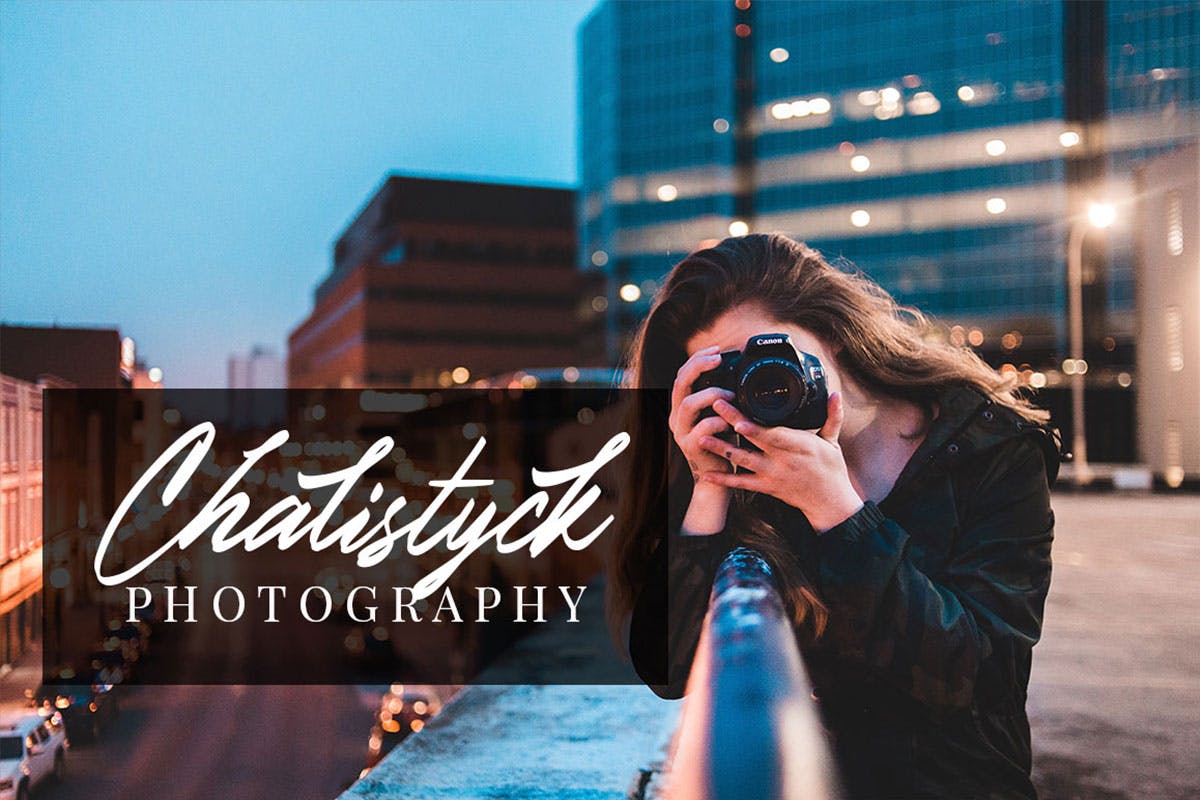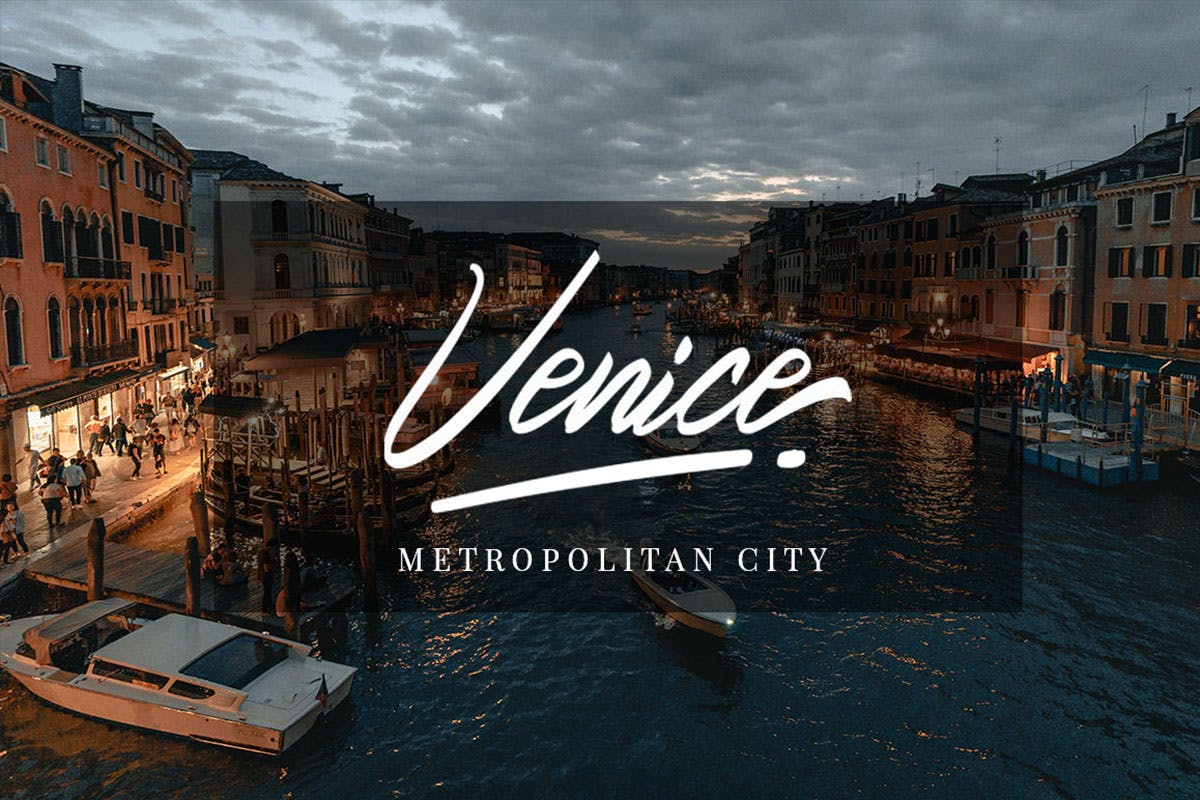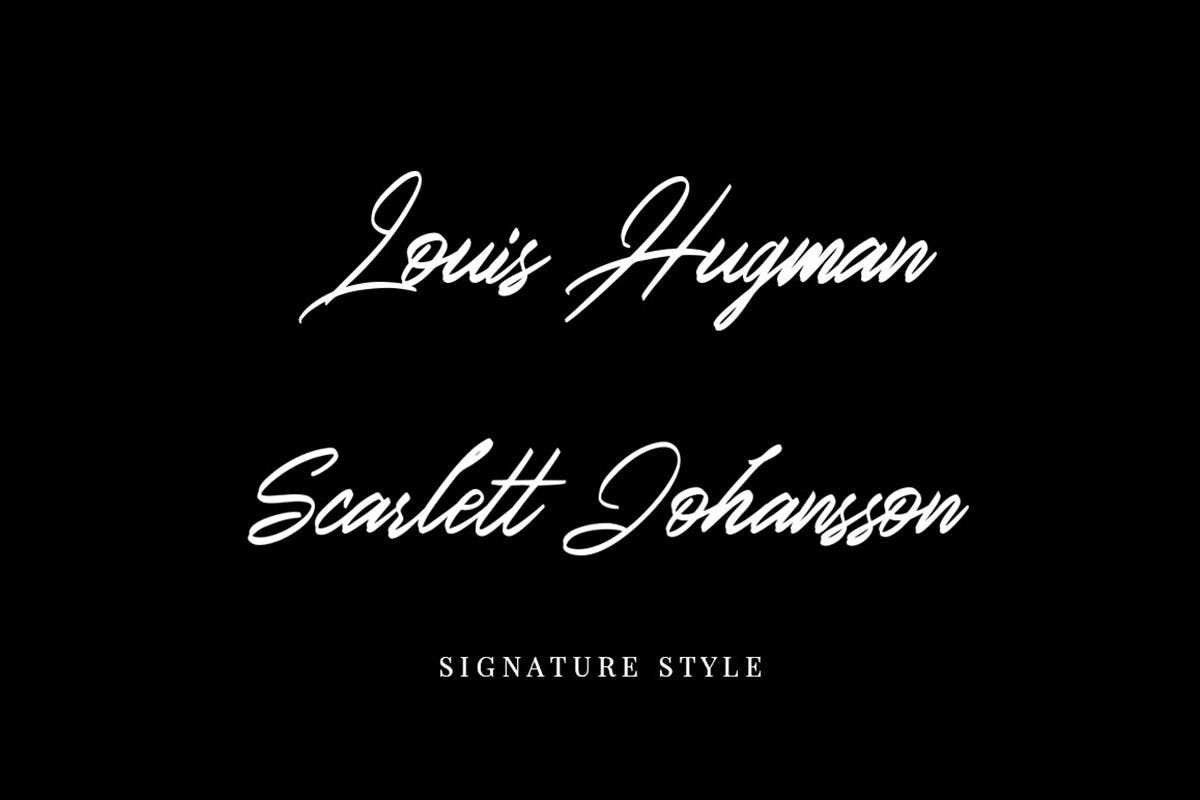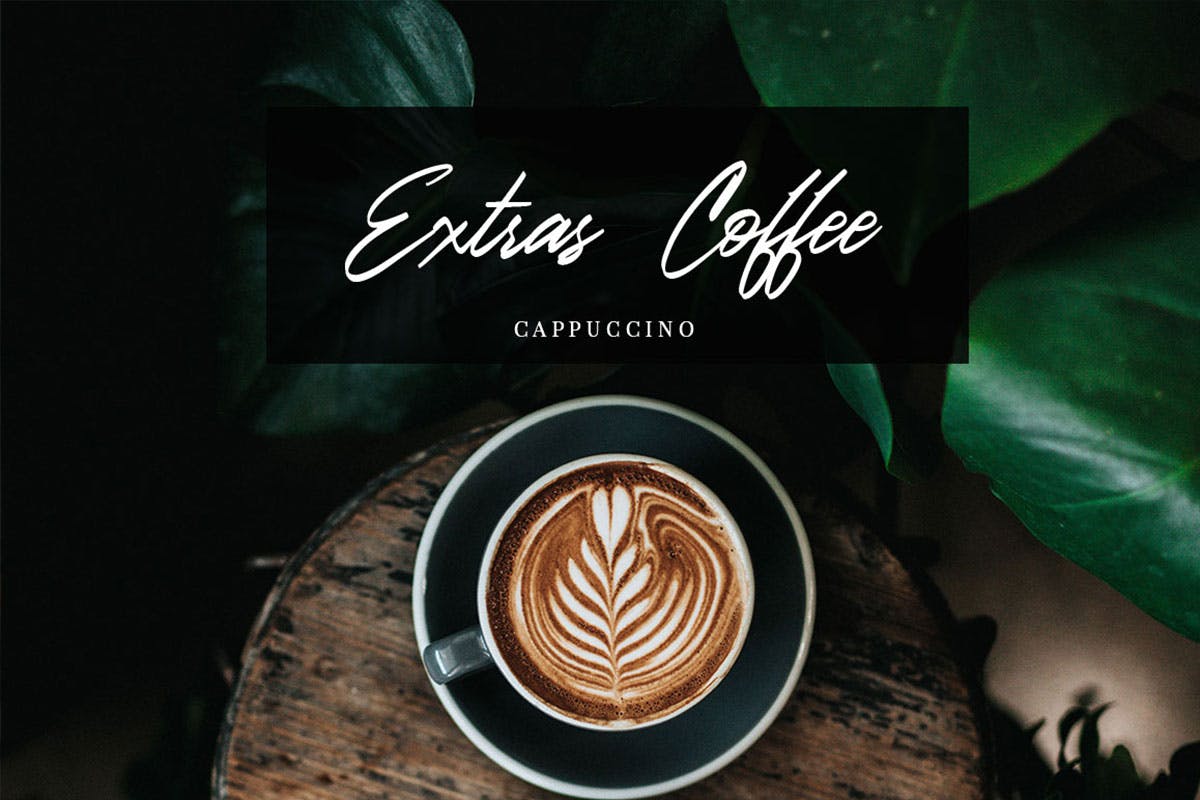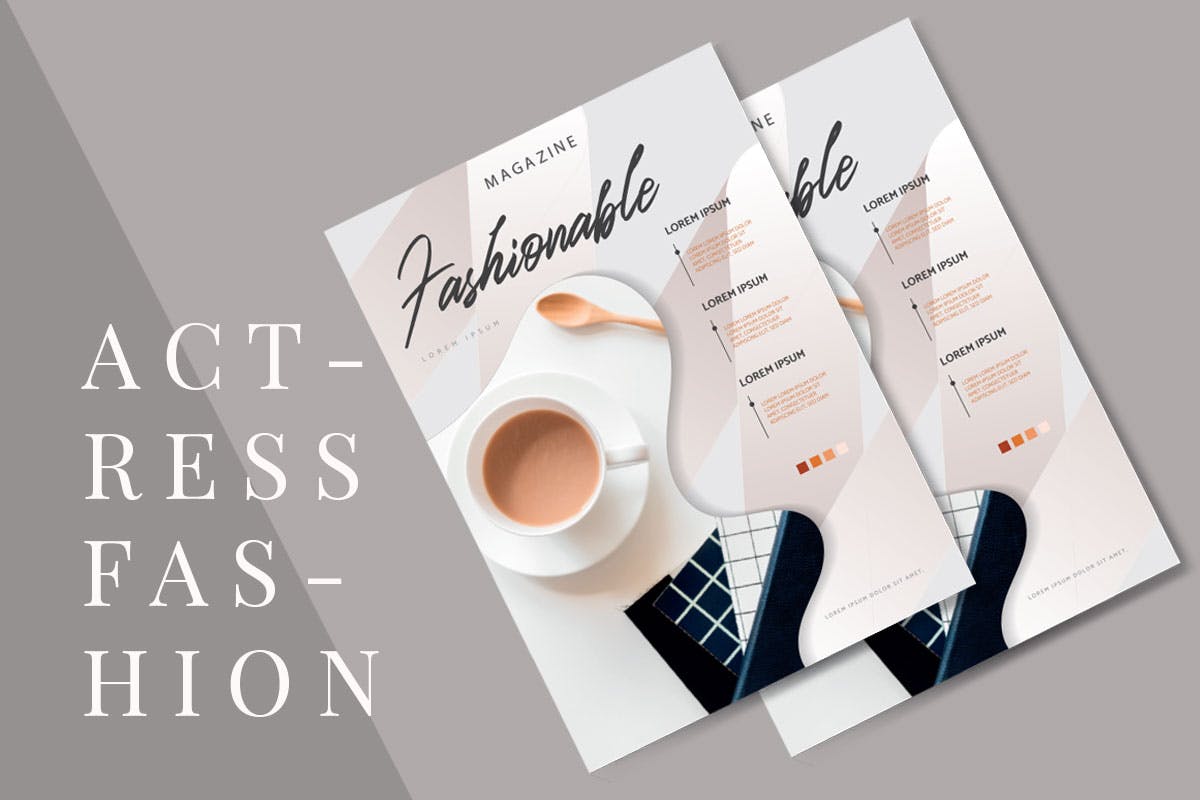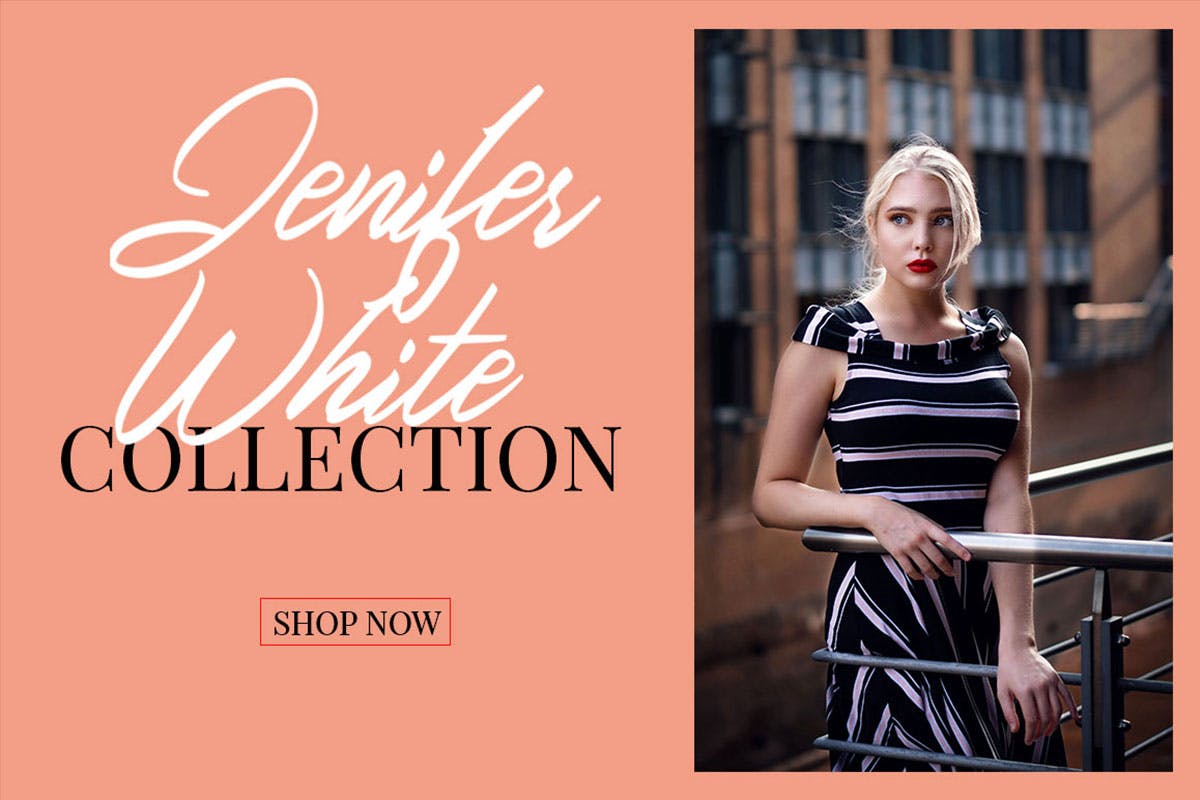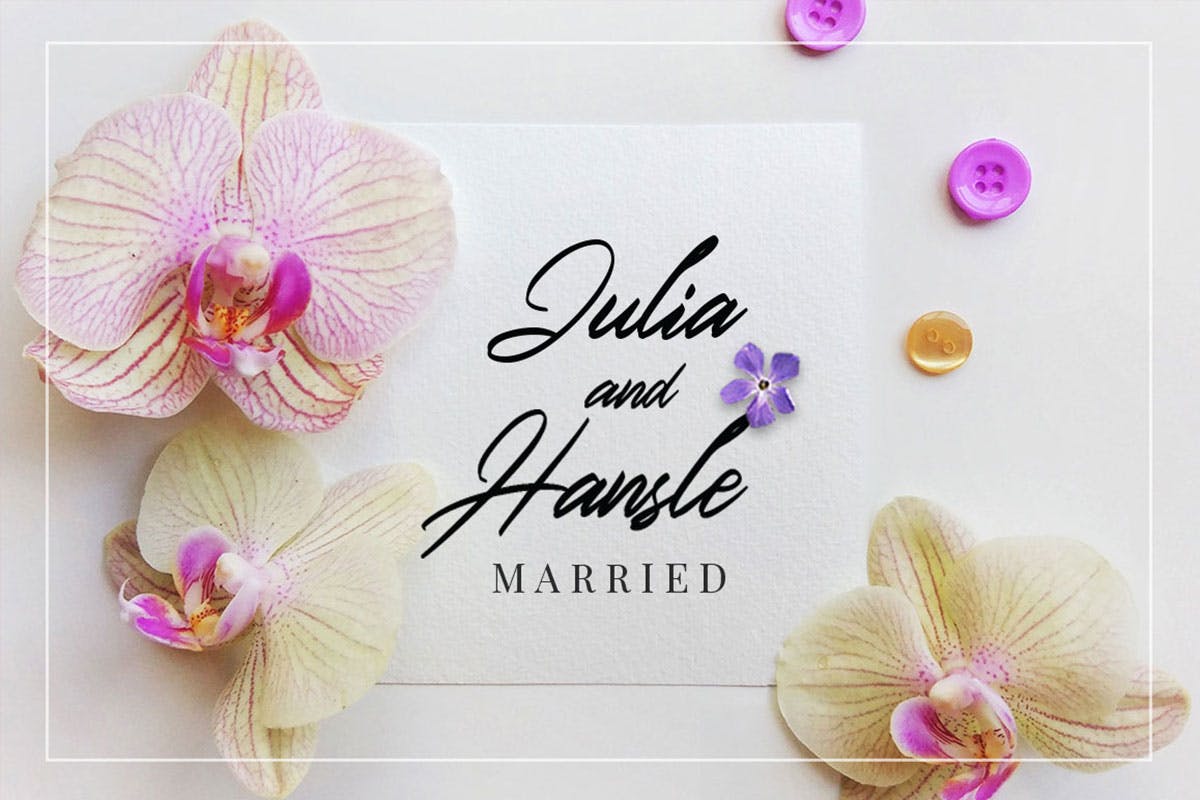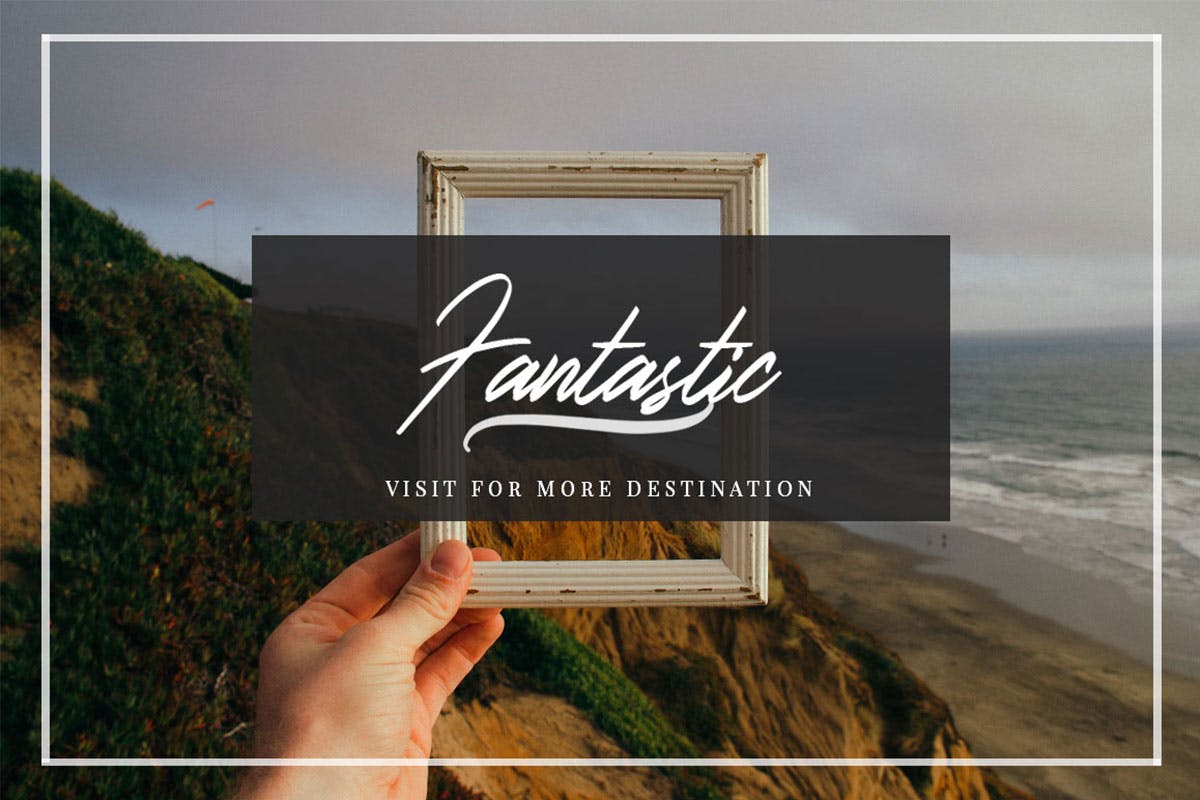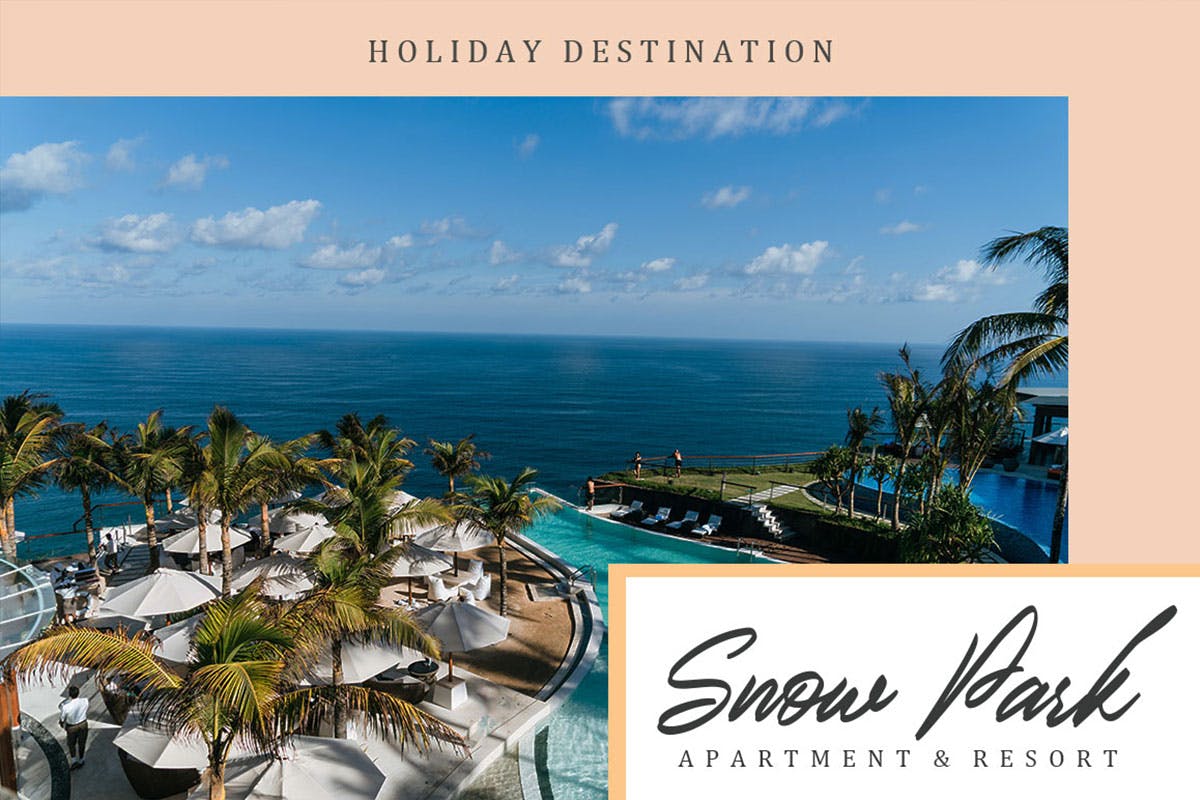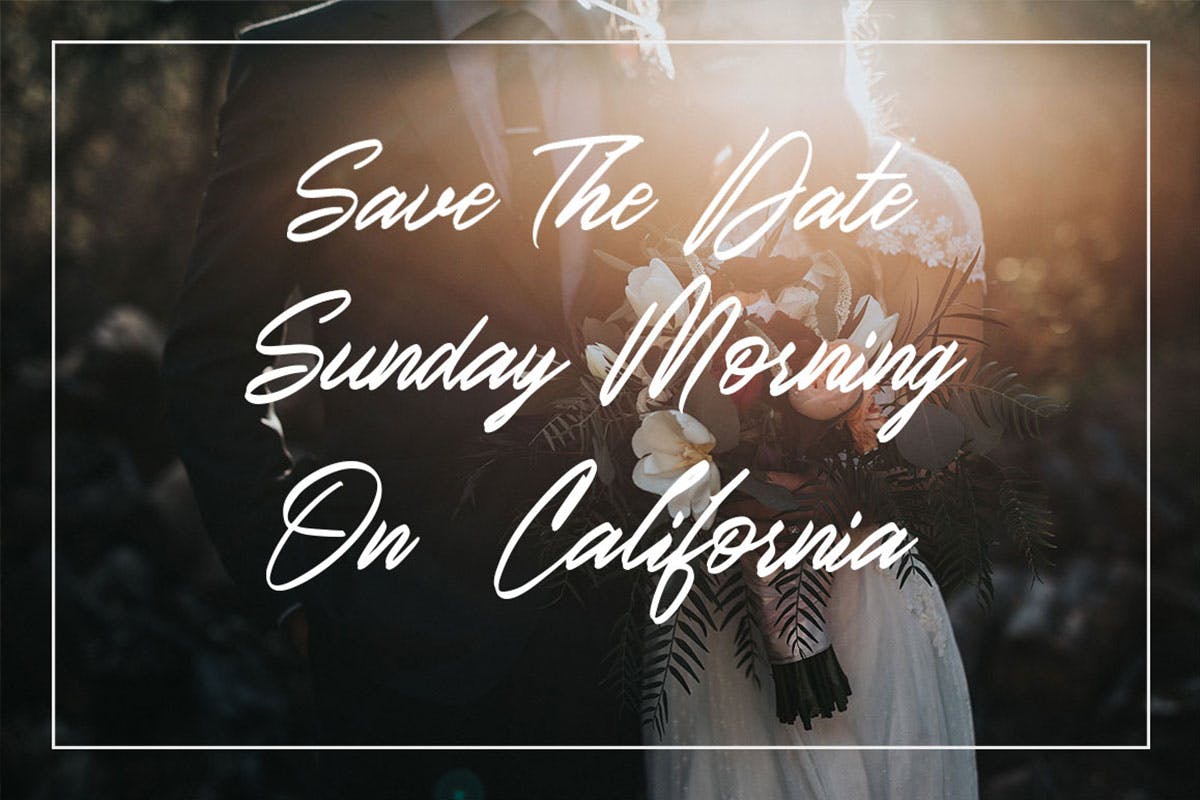
Free Italian Horskey Script Font
Free Italian Horskey Script Font is a new fashionable handwriting font with a sexy style. It completed with contemporary and sophisticated capital letters. This font is a beautiful typographic harmony character. It is suitable for diverse projects such as wedding invitations, business cards, social media posts, and more. However, This demo font is available for a personal license, but if you want to get more features, go buy it.